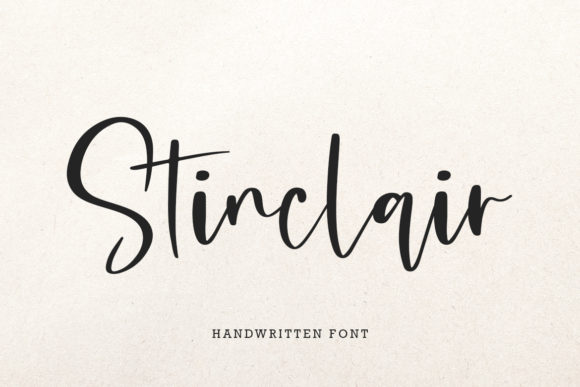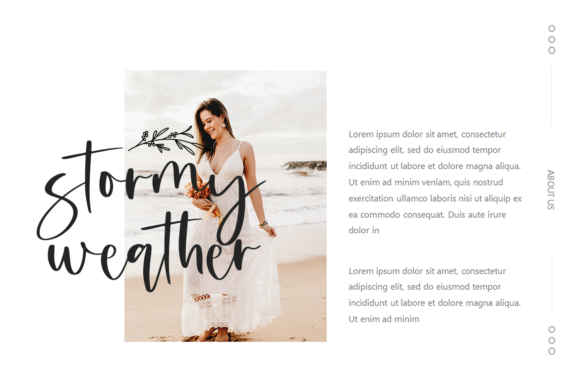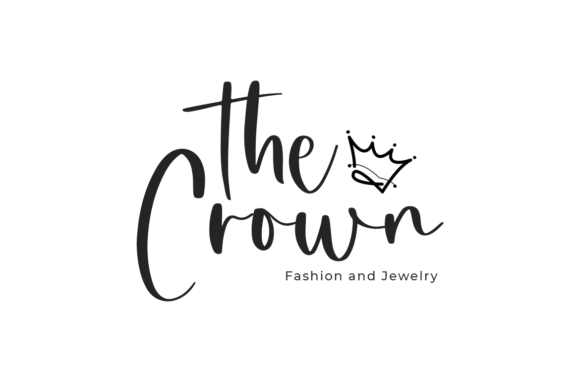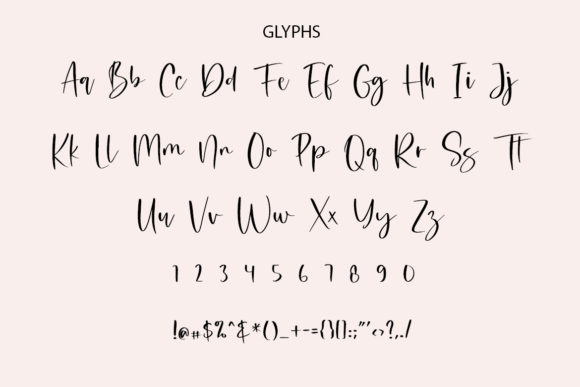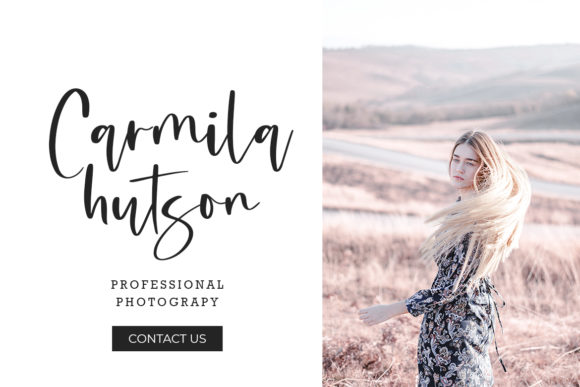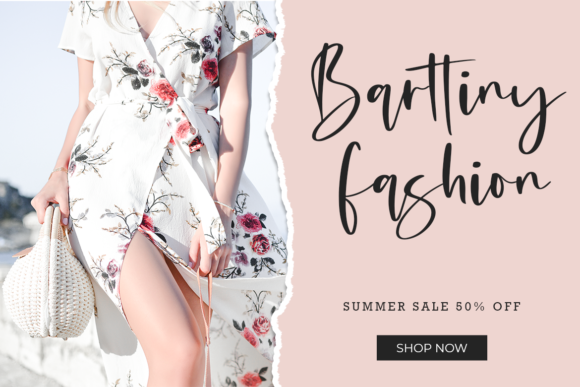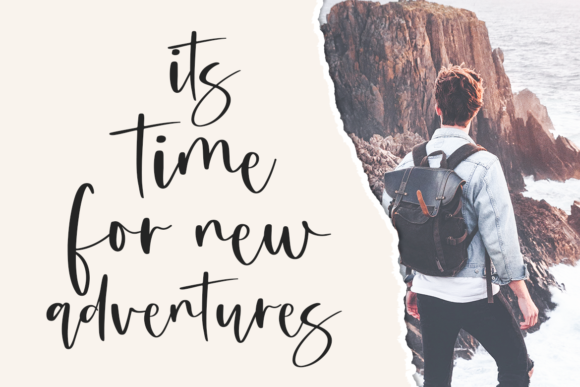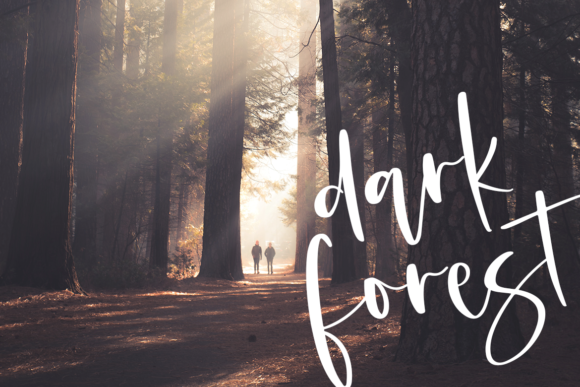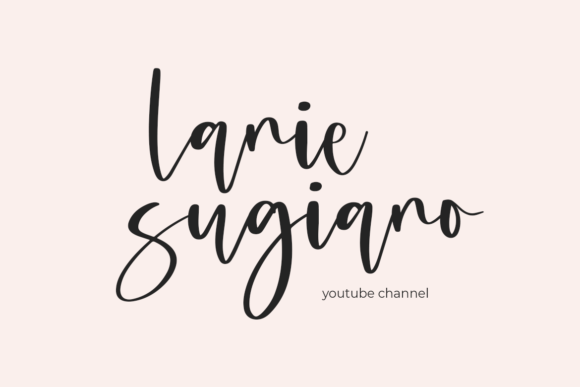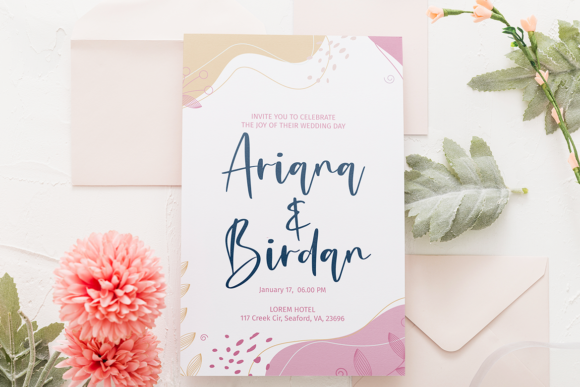
Stinclair Font
About Stinclair Font
Stinclair is a casual and bouncy handwritten font. Clean and a little bit quirky, this font is the perfect fit for all of your logos, branding, social media, and crafty DIY projects.